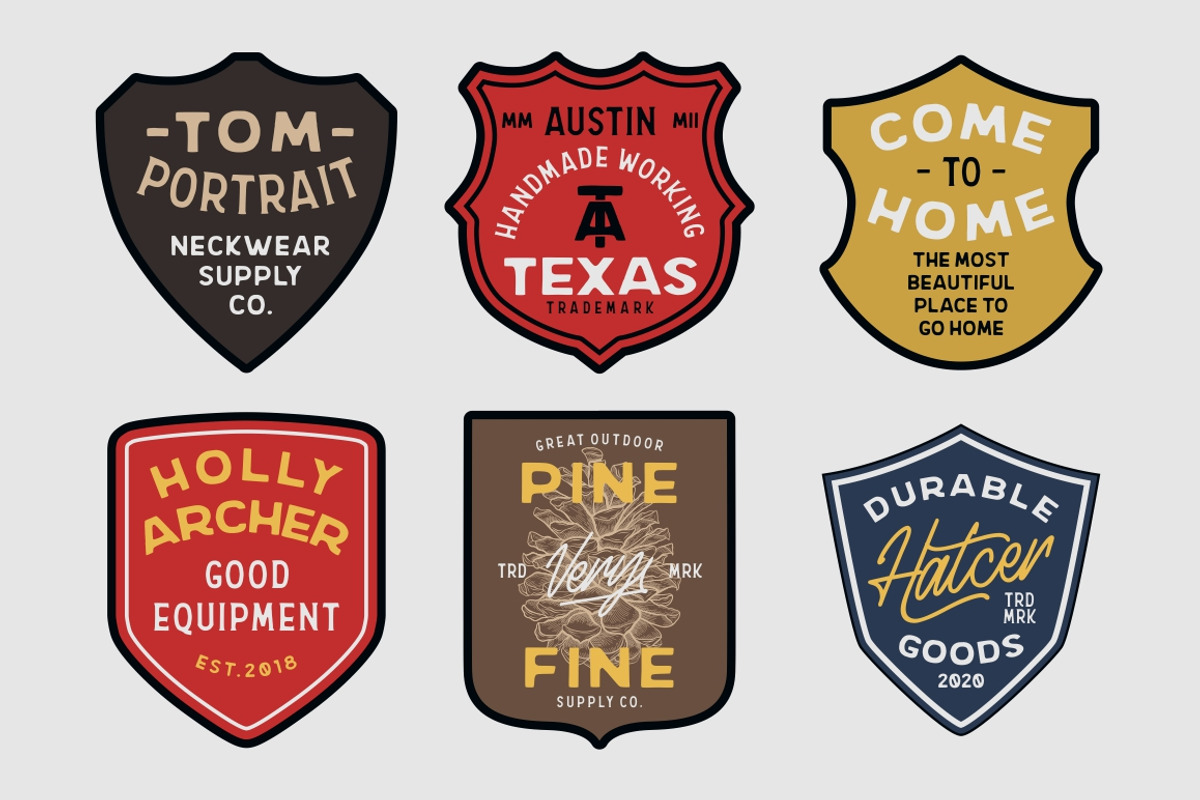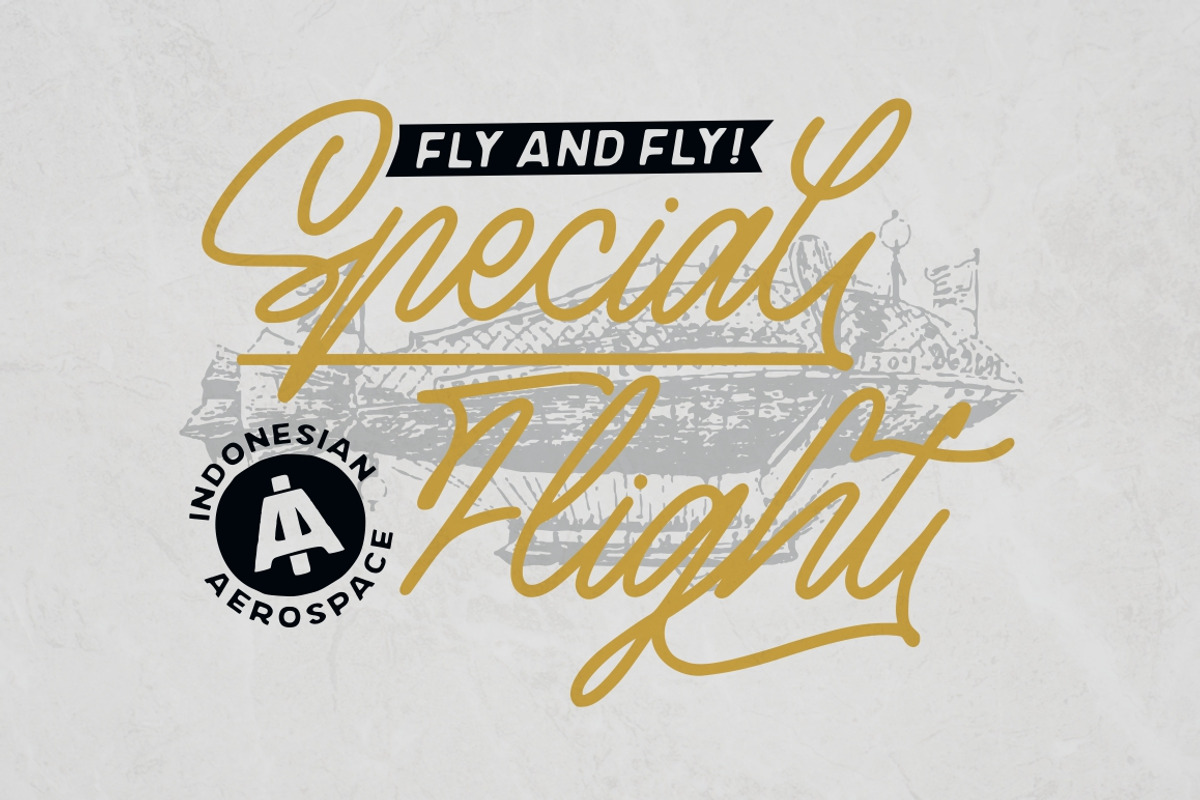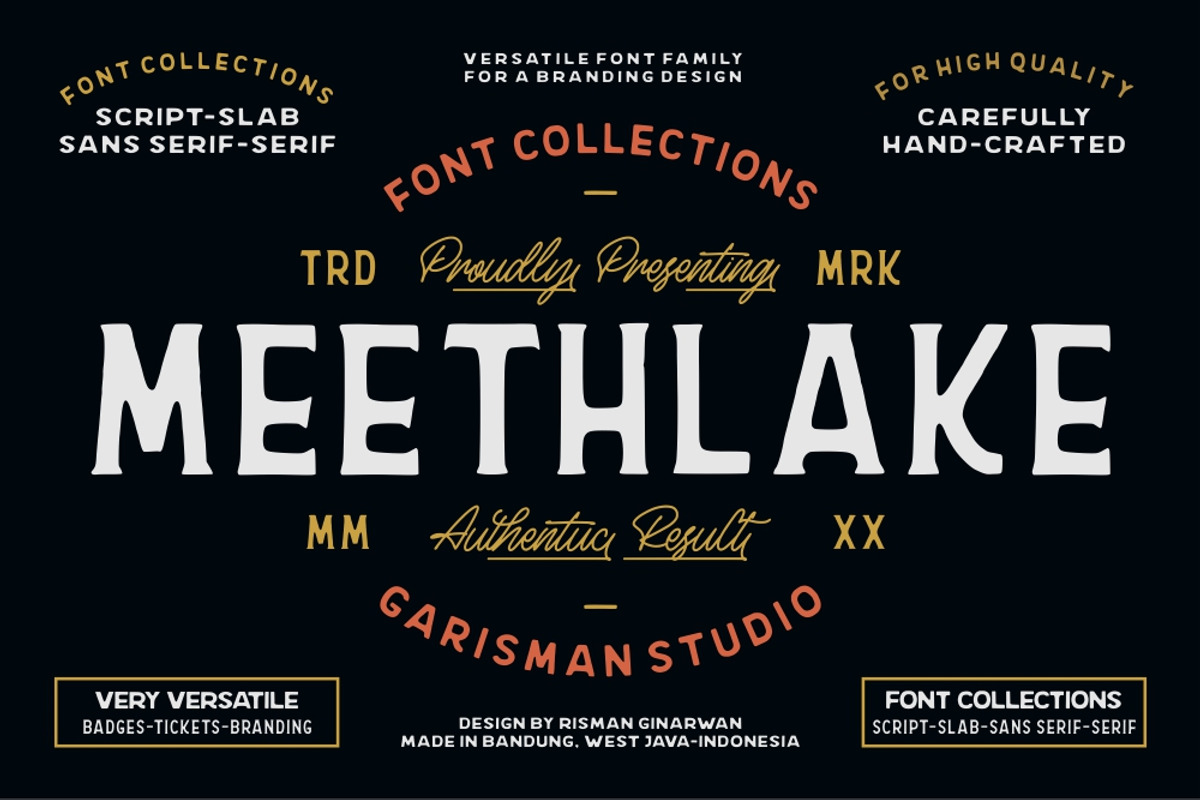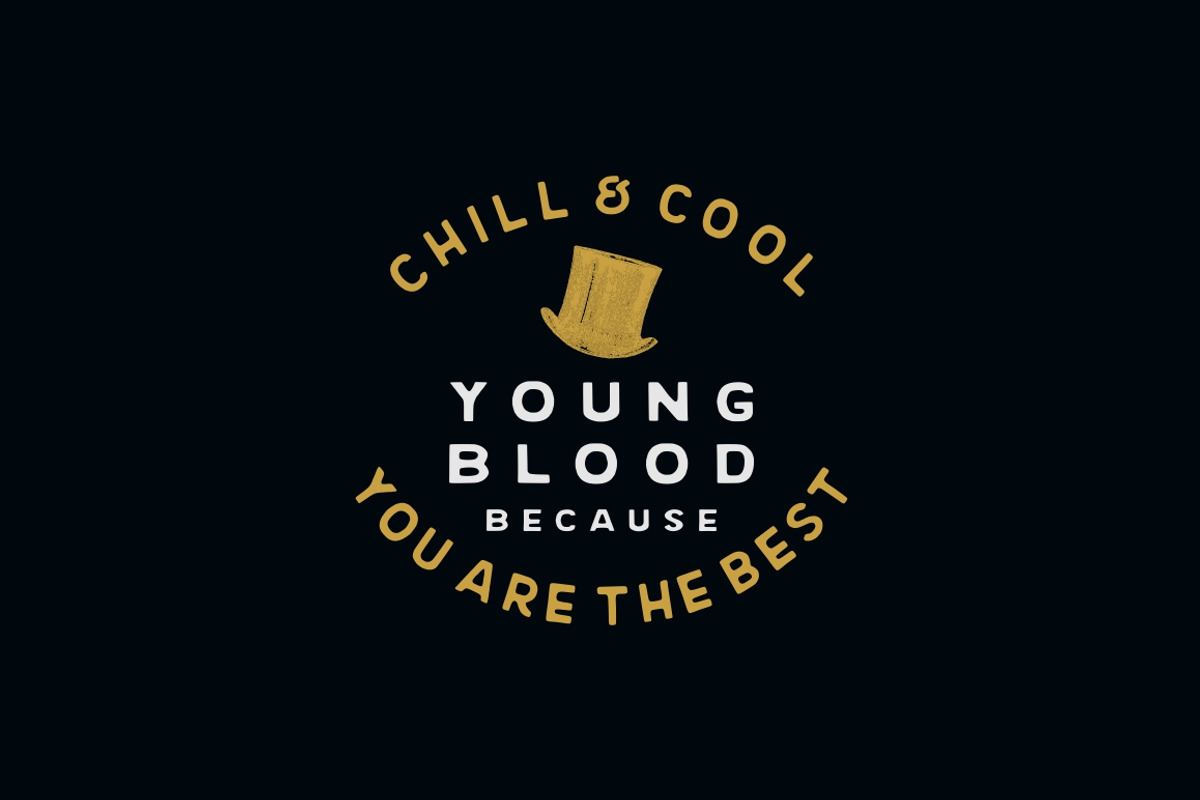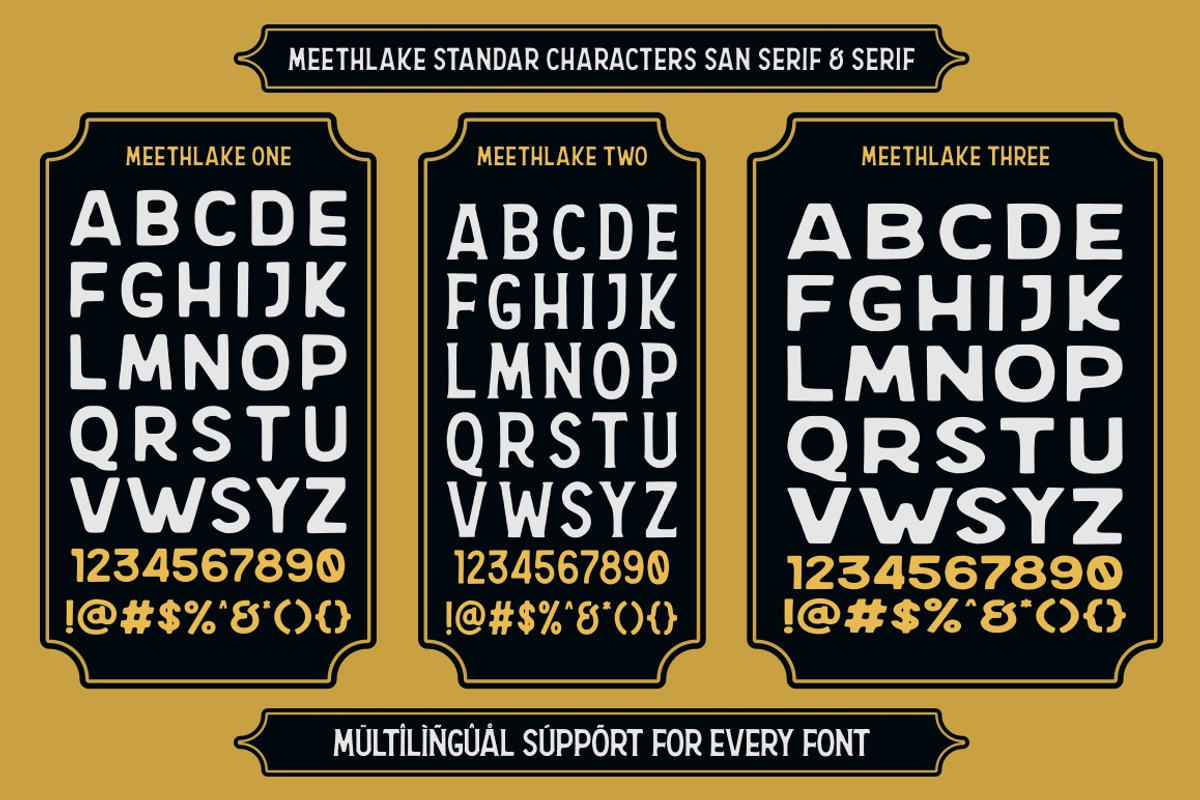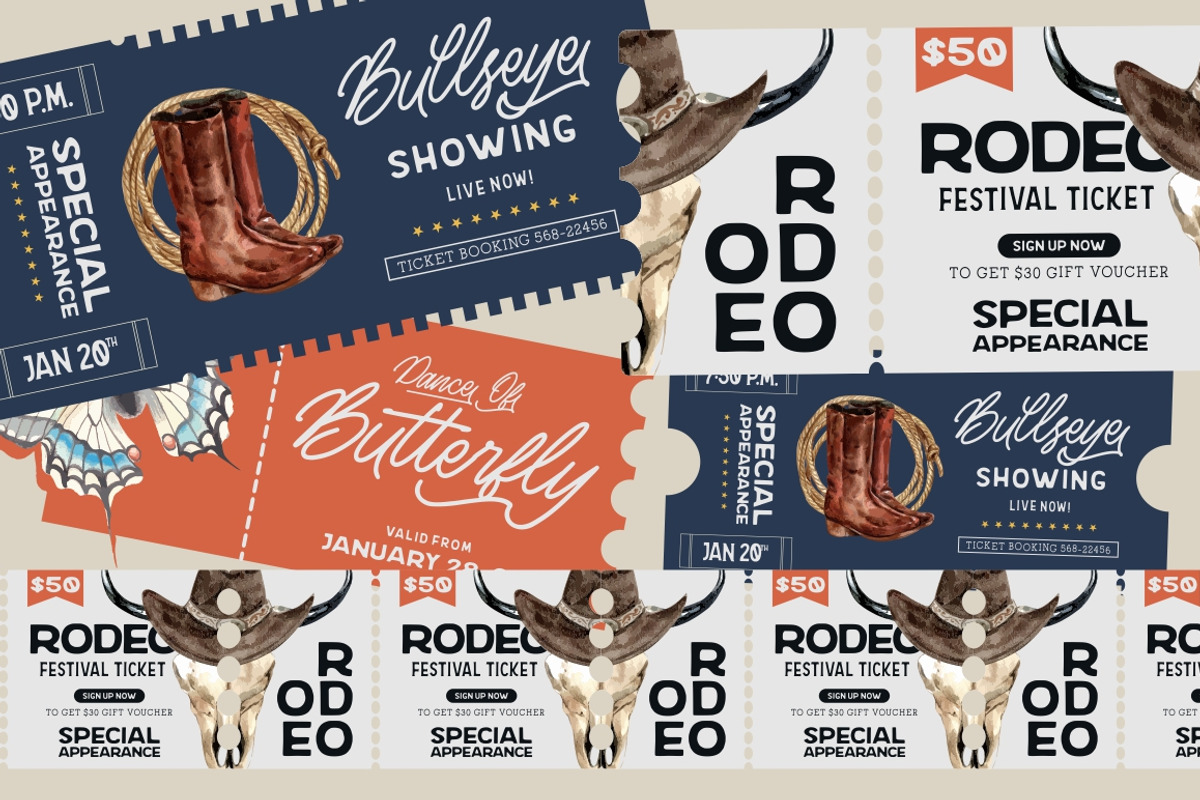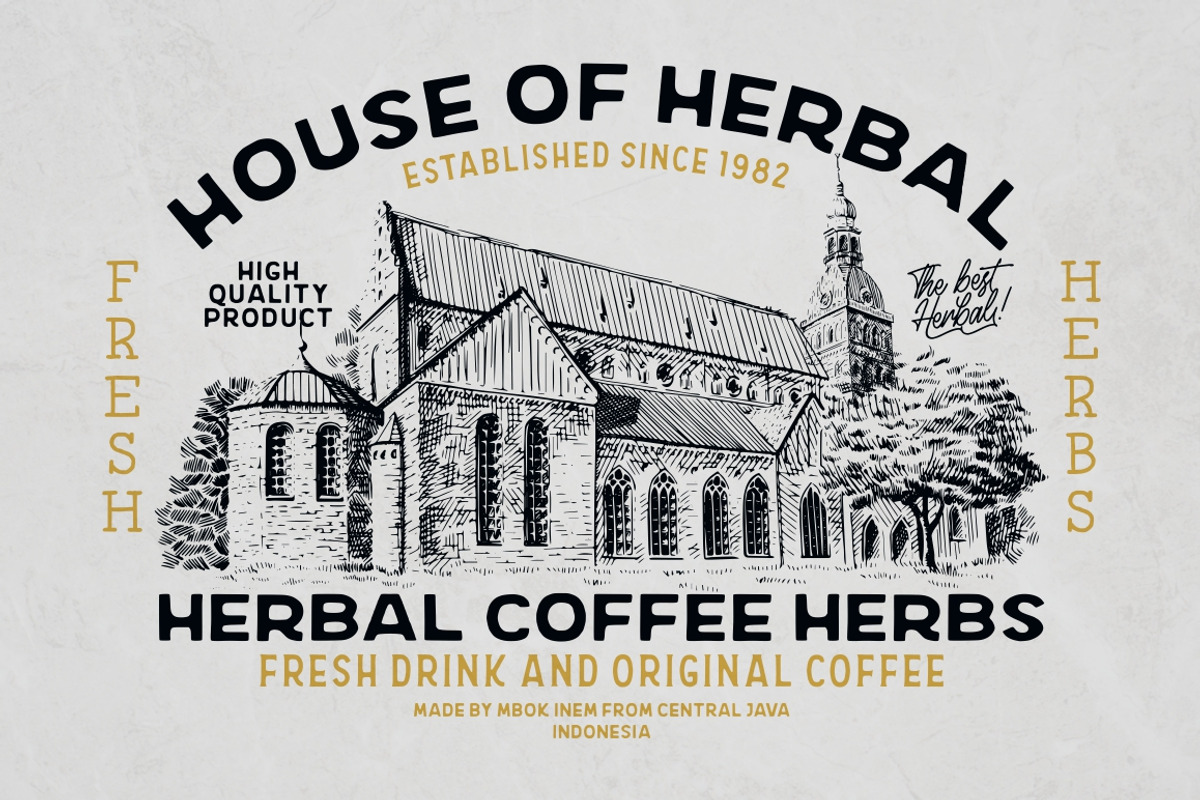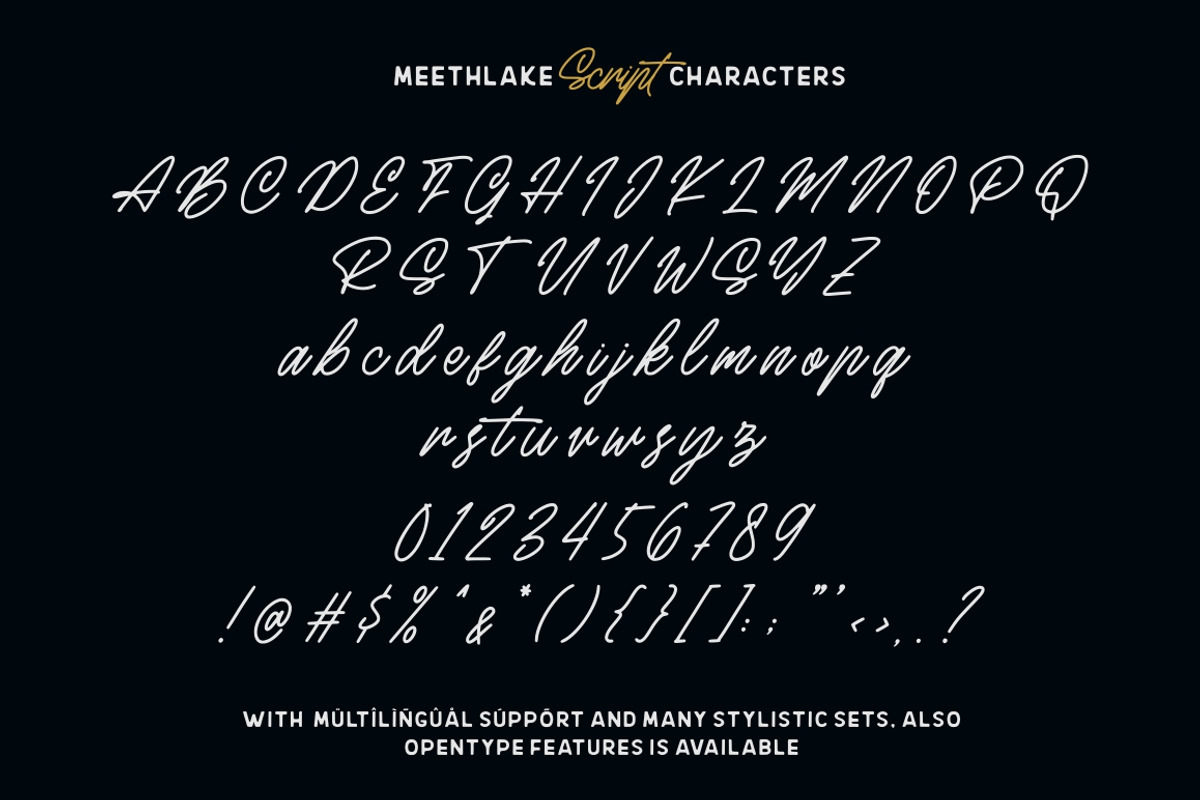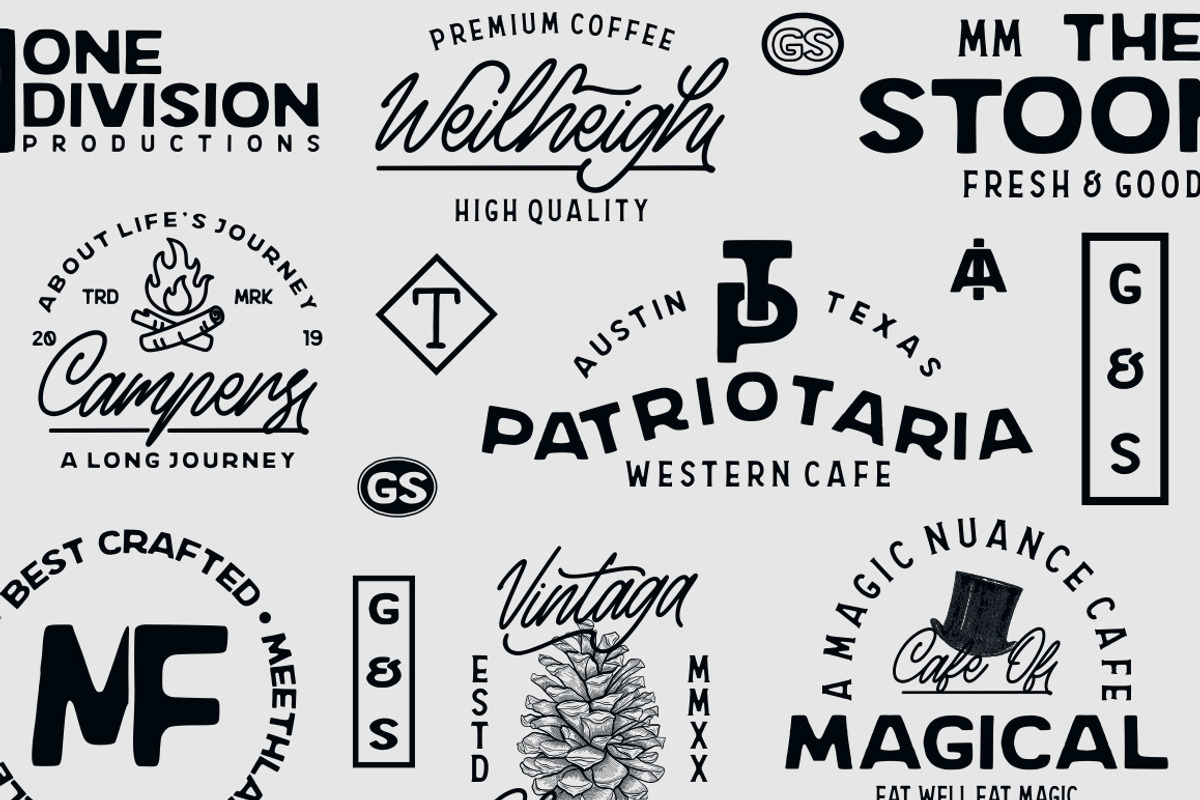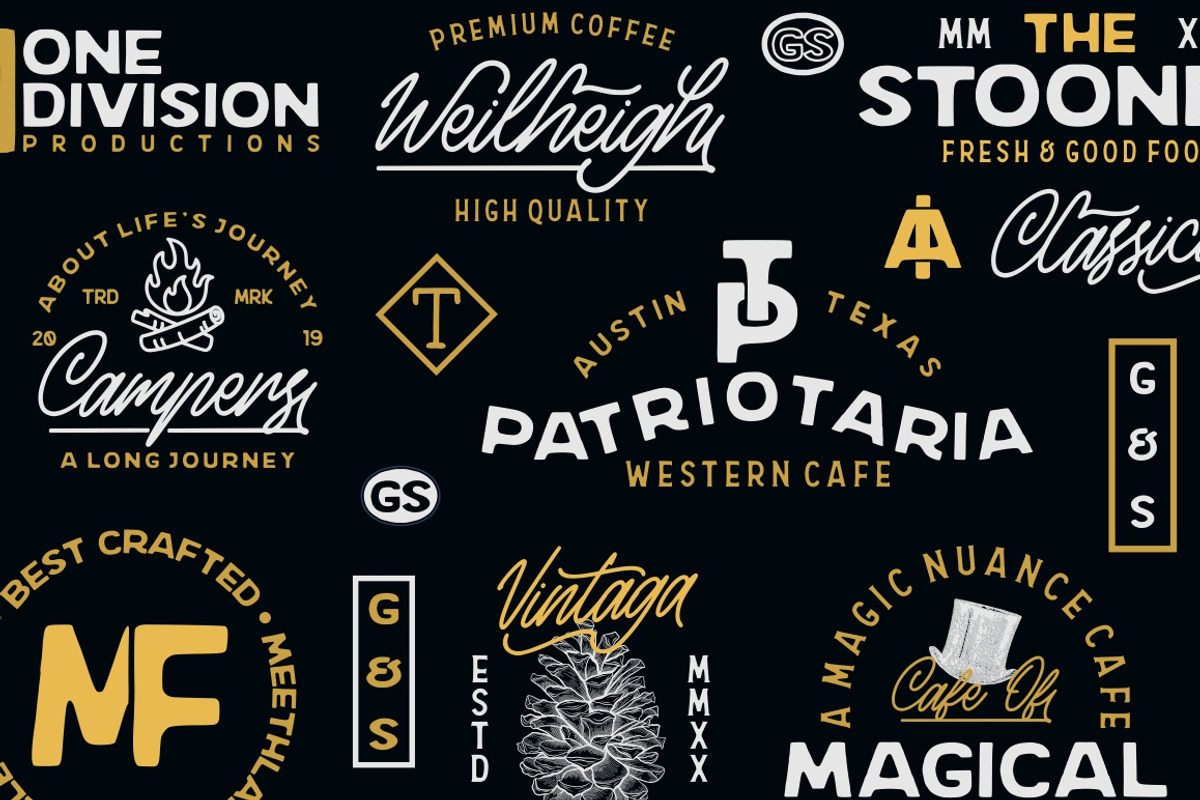
Meethlake Typeface || Vintage Font
Produly Presenting Meethlake Typeface || Vintage Font
Meethlake born from an inspiring vintage display. This font gives a feel of a vintage, classic, old, handmade looked like. Already PUA Encoded and I think this font is perfect for people looking for vintage aesthetic or logo-type. Suitable for any graphic designs such as branding materials, t-shirt, print, business cards, logo, poster, t-shirt, photography, quotes .etc.
- Meethlake Script
- Meethlake Slab
- Meethlake One
- Meethlake Two
- Meethlake Three
- Meethlake Script support Ligature, Stylistic Sets, Contextual Alternates, and Swashes.